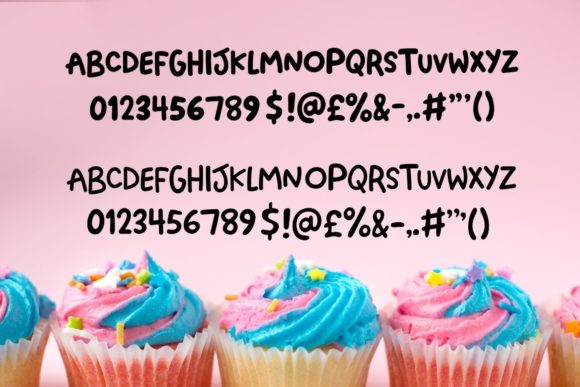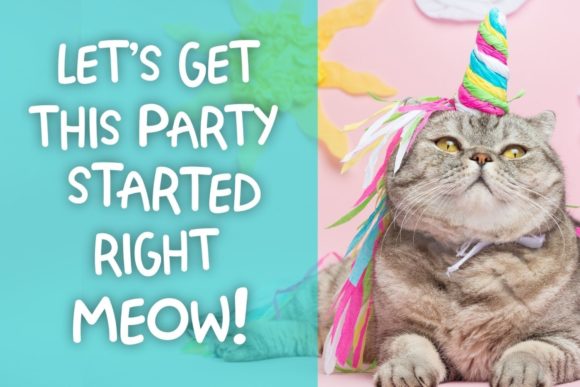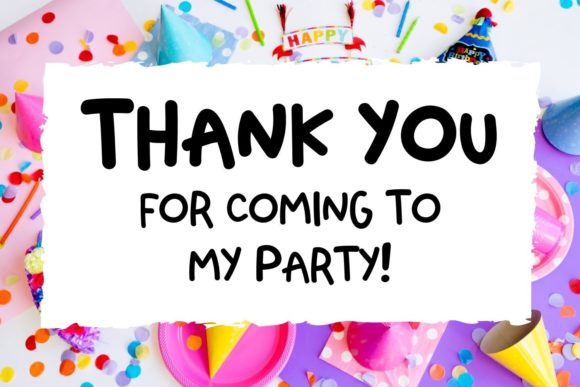
Introduction to Jelly Cat Font
Remember the moment when you stumbled upon the perfect font to bring your creative project to life? For designers, that moment is pure magic. It’s the spark that ignites the entire design process, and it’s exactly what you’ll get with the adorable Jelly Cat Font.
With its sweet and friendly handwritten style, Jelly Cat Font is a design resource that’s hard to resist. Its natural and unique charm makes it incredibly versatile, allowing you to unleash your creativity and bring your vision to life. Whether you’re working on a children’s book, a wedding invitation, or a social media campaign, this font is sure to be a game-changer.
Key Features of Jelly Cat Font
- High-quality design: The Jelly Cat Font is a professional and cute design resource ideal for various creative projects.
- Unique and playful style: The Jelly Cat Font features a unique and playful style, making it perfect for projects that require a fun and whimsical touch.
Honest Review: Jelly Cat Font
What works well is the transparent background, which allows for seamless integration with any design element. The font itself is playful and fun, making it perfect for projects that require a whimsical touch.
- ✨ Playful and fun design that adds a whimsical touch to any project
- ✨ High quality font that’s perfect for personal and professional projects
- ✨ Transparent background for seamless integration
However, there are a few limitations to consider. The font is a bit limited in its style options, which may not be suitable for projects that require a more formal tone.
- ⚠️ Limited style options may not be suitable for formal projects
Overall, I’m quite impressed with the Jelly Cat Font. It’s a great addition to any design resource and I would definitely recommend it for creative projects that require a playful touch.